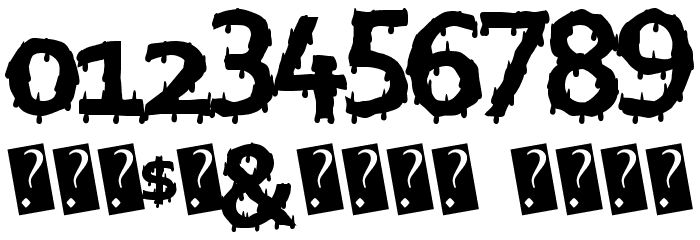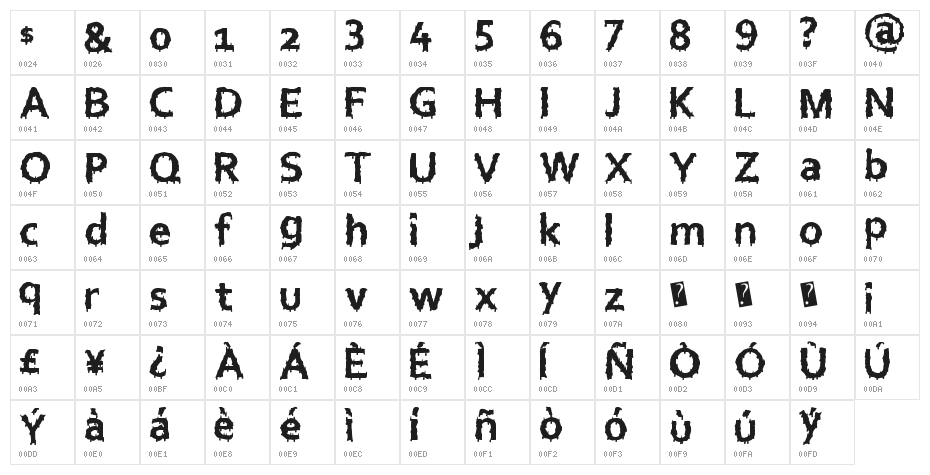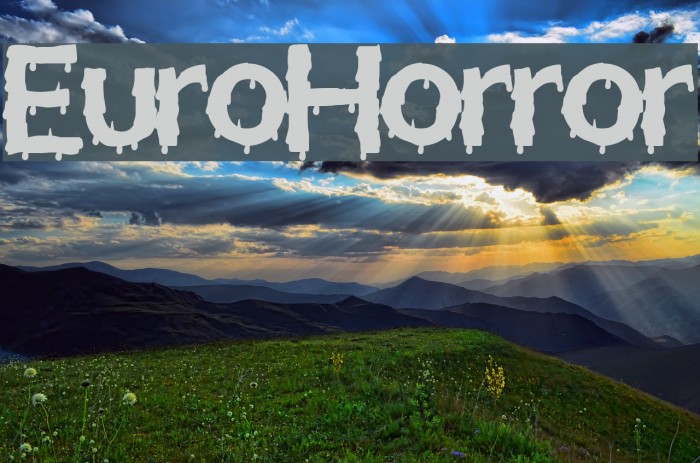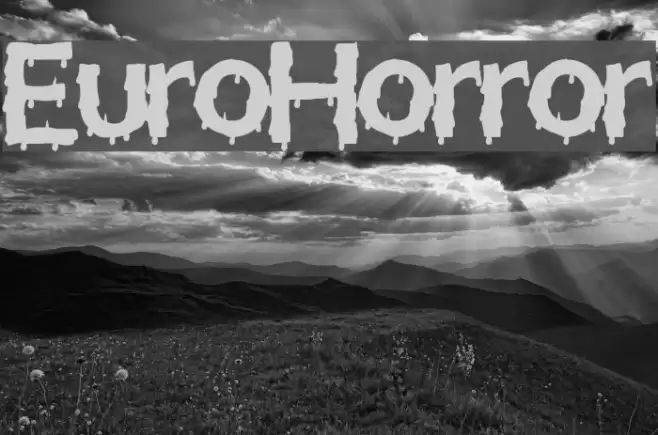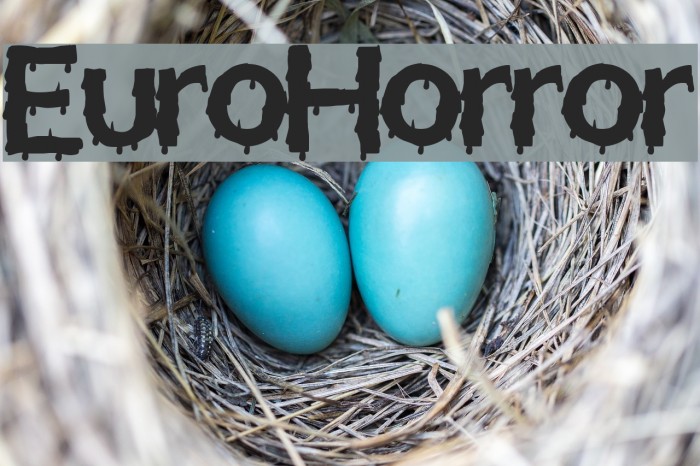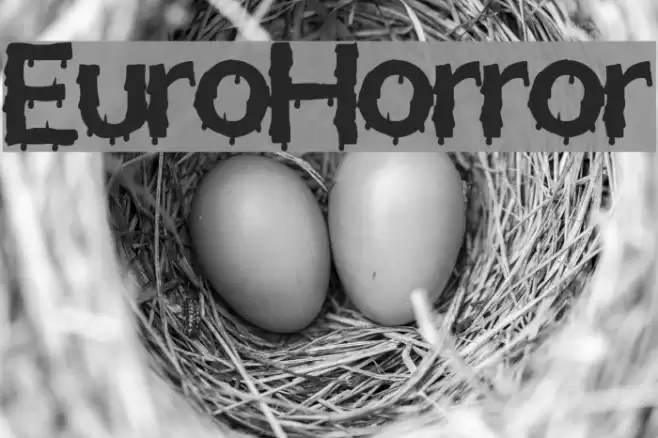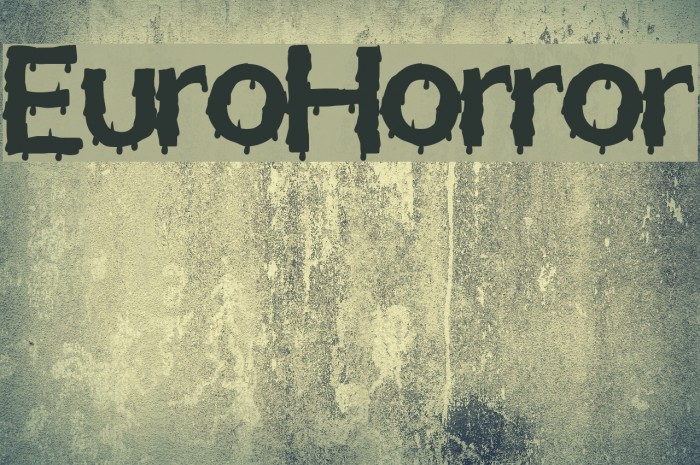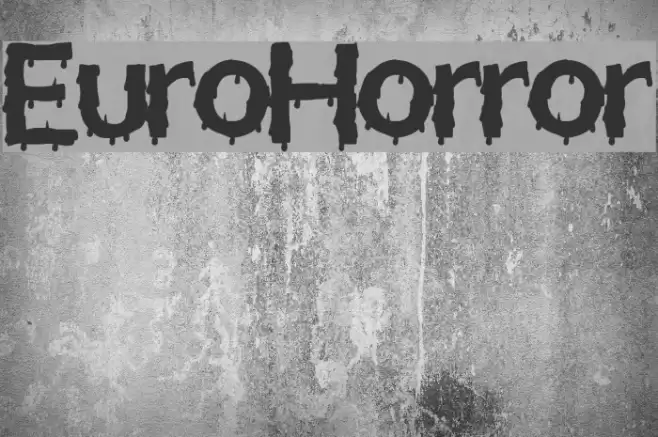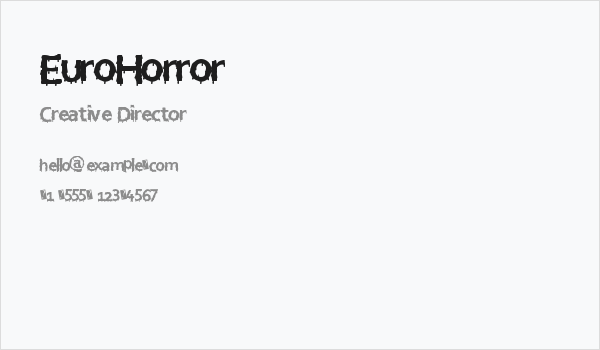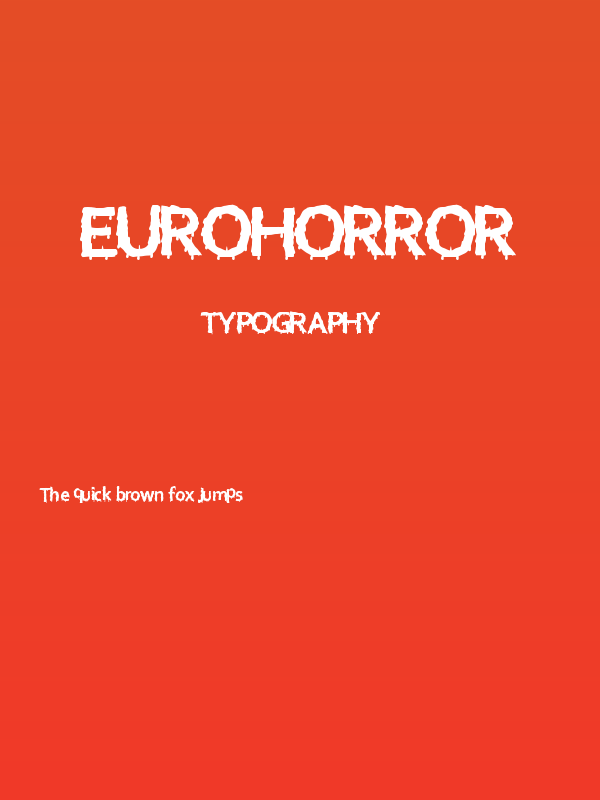
EuroHorror Font
EuroHorror Description
This font embodies a chilling and eerie aesthetic, perfect for horror-themed projects. The characters are designed with a dripping effect, reminiscent of blood or slime, creating a sense of unease and suspense. The uppercase and lowercase letters maintain a consistent style, with jagged edges and irregular shapes that enhance the unsettling vibe. Numbers and special characters follow the same design principles, ensuring a cohesive look across all text elements. This font is ideal for capturing attention and evoking a sense of fear or mystery.
| Proposed Projects | Ideal for horror movie posters, Halloween event flyers, spooky-themed invitations, or any project requiring a chilling atmosphere. |